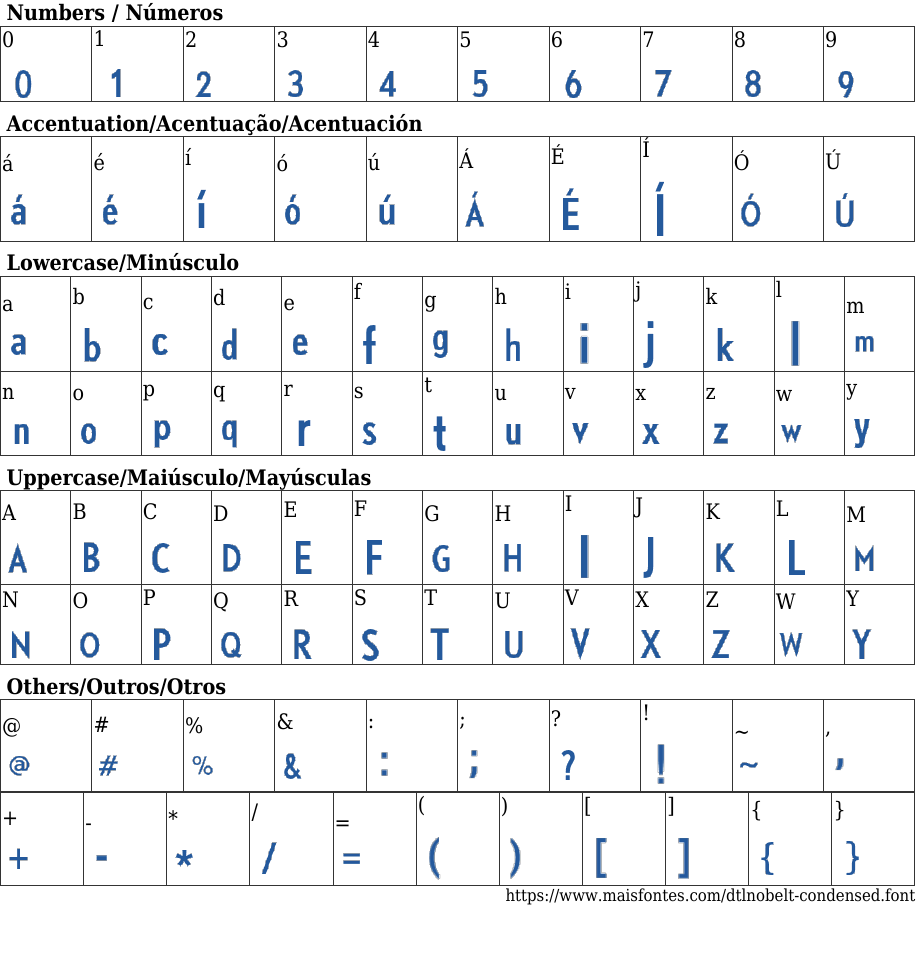
Dtl Nobel Font . Web view logos featuring dtl nobel font and find details about the fonts they use. De roos / andrea fuchs / fred smeijers and produced by the dutch type.
Web view logos featuring dtl nobel font and find details about the fonts they use. Web the exquisite dtl nobel fonts were designed by sjoerd h. Web download dtl nobel for free, view sample text, rating and more on fontsgeek.com.
A revival of nobel by s.h. Web dtl nobel is ontworpen door andrea fuchs en fred smeijers op basis van nobel van sjoerd h. De roos (lettergieterij amsterdam, 1929), started in 1990 and first released in 1993. Web view logos featuring dtl nobel font and find details about the fonts they use.
Dtl Nobel Font - Web dtl nobel is ontworpen door andrea fuchs en fred smeijers op basis van nobel van sjoerd h. Web view logos featuring dtl nobel font and find details about the fonts they use. Web download dtl nobel t light for free. Web nobel is a font family inspired by the 1929 amsterdam typefoundry design, with 18 styles and opentype features..
Dtl Nobel Font - Web dtl nobel is ontworpen door andrea fuchs en fred smeijers op basis van nobel van sjoerd h. Web download dtl nobel t light for free. Web dtl nobel in use. De roos / andrea fuchs / fred smeijers and produced by the dutch type. Web download dtl nobel for free, view sample text, rating and more on fontsgeek.com.
Dtl Nobel Font - De roos / andrea fuchs / fred smeijers and produced by the dutch type. Web download dtl nobel for free, view sample text, rating and more on fontsgeek.com. Web dtl nobel in use. A revival of nobel by s.h. Web download dtl nobel t light for free.
Dtl Nobel Font - Web view logos featuring dtl nobel font and find details about the fonts they use. De roos / andrea fuchs / fred smeijers and produced by the dutch type. De roos (lettergieterij amsterdam, 1929), started in 1990 and first released in 1993. Web download dtl nobel for free, view sample text, rating and more on fontsgeek.com. Web dtl nobel is.
Dtl Nobel Font - Web dtl nobel in use. Web download dtl nobel for free, view sample text, rating and more on fontsgeek.com. Web dtl nobel is ontworpen door andrea fuchs en fred smeijers op basis van nobel van sjoerd h. Web the exquisite dtl nobel fonts were designed by sjoerd h. De roos en geproduceerd door de dtl studio
Dtl Nobel Font - A revival of nobel by s.h. Web download dtl nobel for free, view sample text, rating and more on fontsgeek.com. Web the exquisite dtl nobel fonts were designed by sjoerd h. Web view logos featuring dtl nobel font and find details about the fonts they use. Web dtl nobel in use.
Dtl Nobel Font - De roos (lettergieterij amsterdam, 1929), started in 1990 and first released in 1993. A revival of nobel by s.h. Web download dtl nobel t light for free. Web download dtl nobel for free, view sample text, rating and more on fontsgeek.com. De roos en geproduceerd door de dtl studio
Dtl Nobel Font - De roos (lettergieterij amsterdam, 1929), started in 1990 and first released in 1993. Web the exquisite dtl nobel fonts were designed by sjoerd h. Web dtl nobel in use. Web download dtl nobel t light for free. Web dtl nobel is ontworpen door andrea fuchs en fred smeijers op basis van nobel van sjoerd h.
Dtl Nobel Font - Web dtl nobel is ontworpen door andrea fuchs en fred smeijers op basis van nobel van sjoerd h. Web download dtl nobel for free, view sample text, rating and more on fontsgeek.com. Web download dtl nobel t light for free. A revival of nobel by s.h. De roos en geproduceerd door de dtl studio
Dtl Nobel Font - De roos / andrea fuchs / fred smeijers and produced by the dutch type. Web dtl nobel in use. Web the exquisite dtl nobel fonts were designed by sjoerd h. De roos en geproduceerd door de dtl studio Web view logos featuring dtl nobel font and find details about the fonts they use.
Dtl Nobel Font - Web the exquisite dtl nobel fonts were designed by sjoerd h. Web view logos featuring dtl nobel font and find details about the fonts they use. Web dtl nobel in use. Web nobel is a font family inspired by the 1929 amsterdam typefoundry design, with 18 styles and opentype features. Web download dtl nobel for free, view sample text, rating.
Dtl Nobel Font - Web dtl nobel in use. De roos (lettergieterij amsterdam, 1929), started in 1990 and first released in 1993. Web download dtl nobel for free, view sample text, rating and more on fontsgeek.com. Web download dtl nobel t light for free. De roos / andrea fuchs / fred smeijers and produced by the dutch type.
Dtl Nobel Font - Web download dtl nobel for free, view sample text, rating and more on fontsgeek.com. Web nobel is a font family inspired by the 1929 amsterdam typefoundry design, with 18 styles and opentype features. Web the exquisite dtl nobel fonts were designed by sjoerd h. A revival of nobel by s.h. De roos / andrea fuchs / fred smeijers and produced.
Dtl Nobel Font - Web download dtl nobel for free, view sample text, rating and more on fontsgeek.com. Web dtl nobel in use. Web view logos featuring dtl nobel font and find details about the fonts they use. Web nobel is a font family inspired by the 1929 amsterdam typefoundry design, with 18 styles and opentype features. Web download dtl nobel t light for.